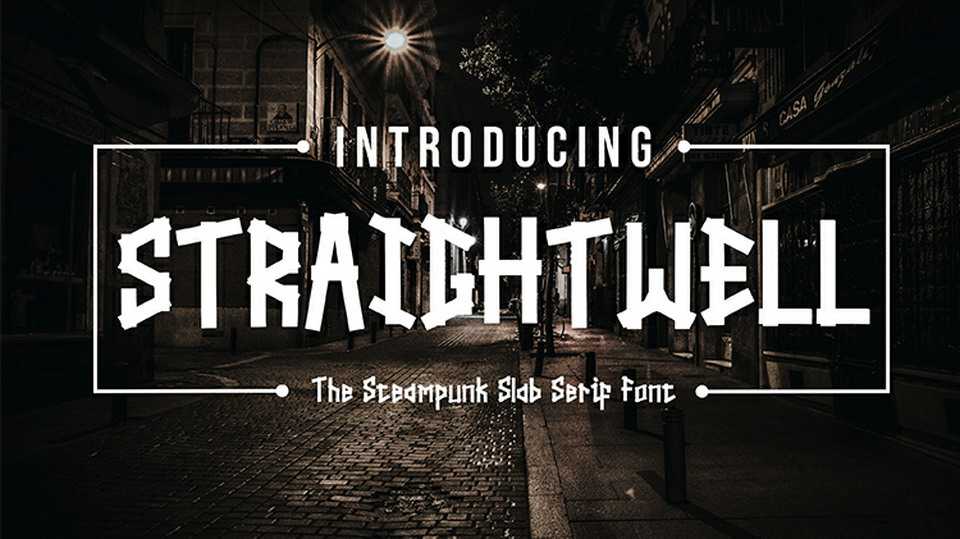
Download Straightwell font, a creative steampunk slab serif typeface. It perfectly fits for posters, labels, badges, headlines, t-shirts and other artworks.